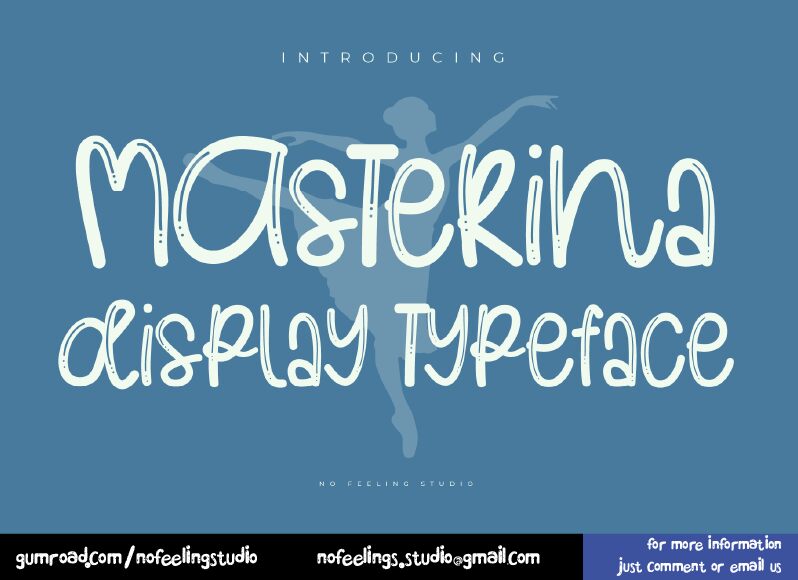
Masterina font is a cute and unique hand-drawn typeface designed by Dimas Asshiddiq of No Feeling Studio. Its light brush style is incredibly fitting to a variety of designs, especially the ones that need a personal hand-drawn letter.